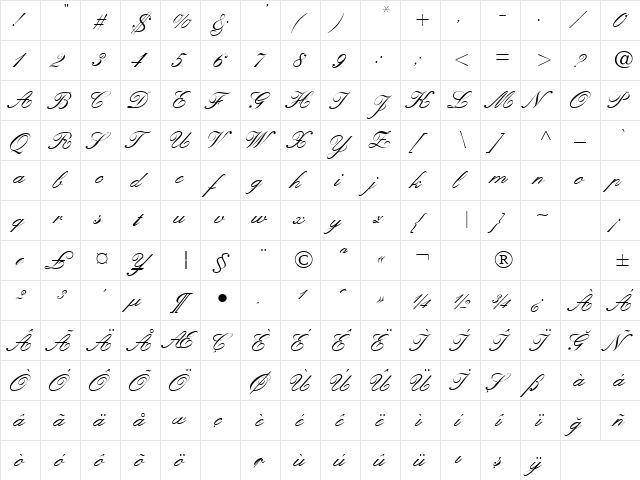
TR Kastler Italic
Design Context for TR Kastler Typeface
TR Kastler is a composed and adaptable typeface that performs quietly and consistently across a wide range of design contexts. The slanted form adds forward momentum and visual energy.